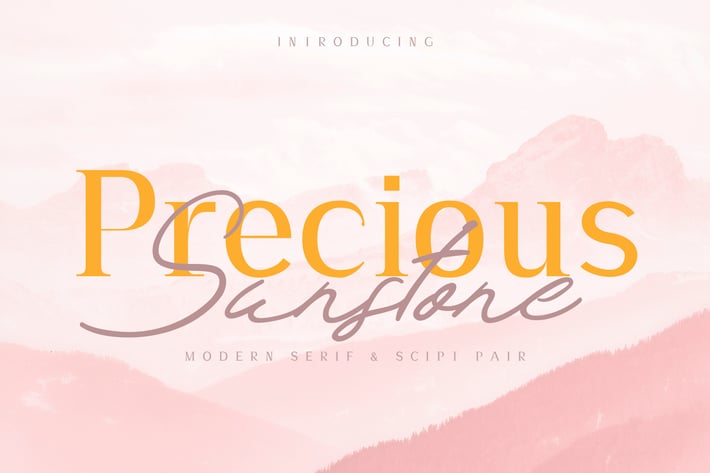
Precious & Sunstone Modern Font Duo
Introducing Precious and Sunstone - a perfectly matching pair of modern serif and script fonts.
This font pair is perfect for all kinds of brandinf projects, logos, invitations, posters, flyers etc.
You can use the fonts separately of together to create modern and bold titles, beautiful ads or feminine hero images.
Play around with the tracking of the serif font and all caps letters to create an endless variety of unique layouts.